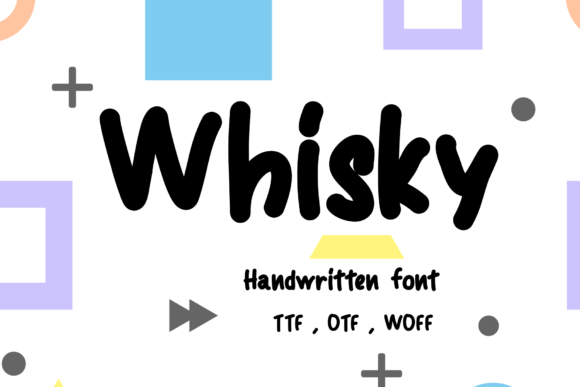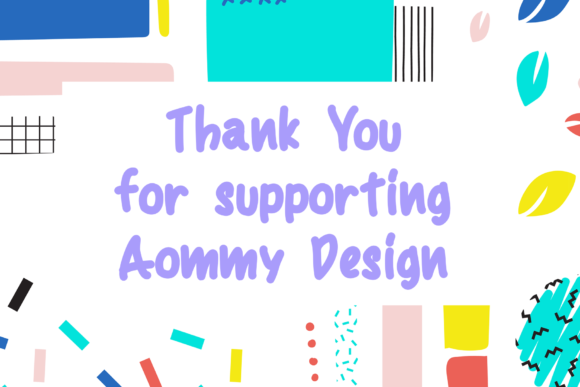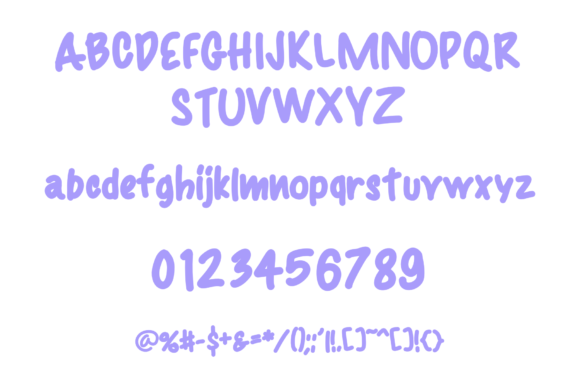
Whisky Font
About Whisky Font
Whisky is a fun and chunky lettered handwritten font. Add it to your most creative ideas and notice how it makes them come alive!